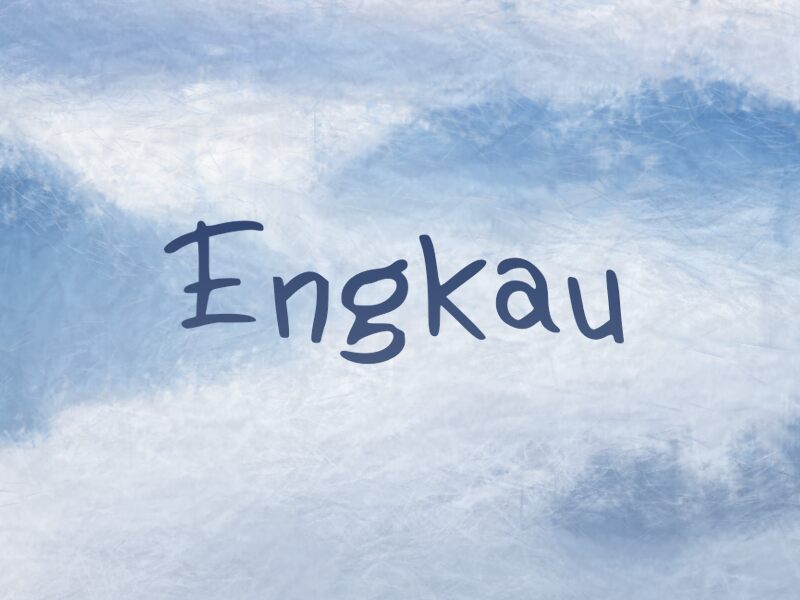
Engkau
Engkau, a bouncy handwritten font by wep, adds a touch of playfulness to your projects. With its semi-light weight, this font exudes elegance and charm.
Perfect for wedding invitations, greeting cards, and feminine branding materials, Engkau brings a whimsical flair to any design. Its fluid strokes and energetic bounce create a sense of movement and liveliness. Whether you're working on a fashion blog, children's book illustrations, or even product packaging for artisanal goods, Engkau will infuse your work with personality and joy.